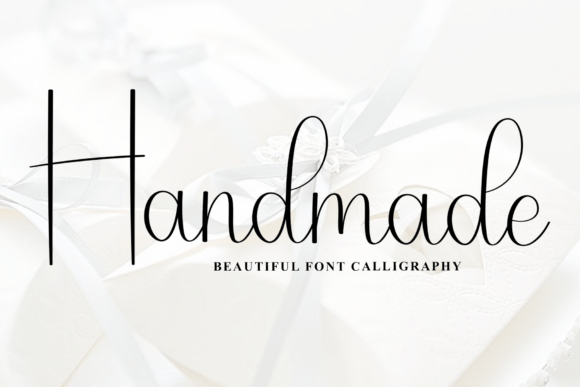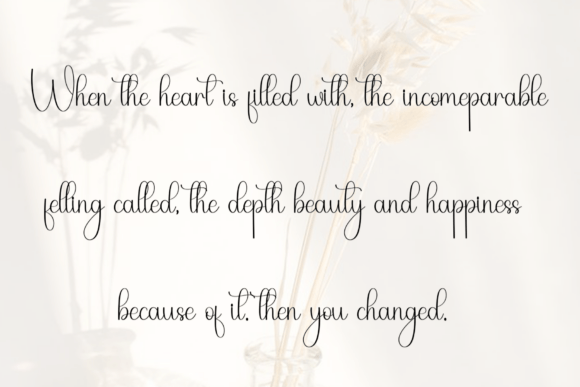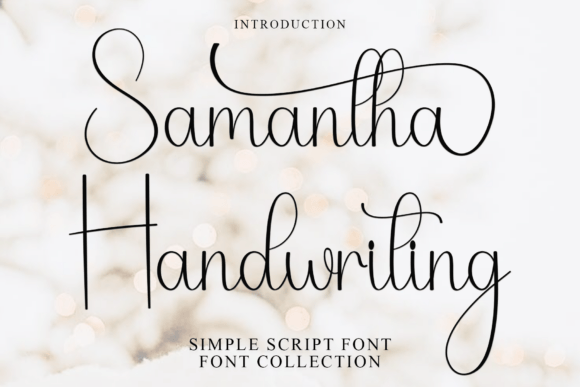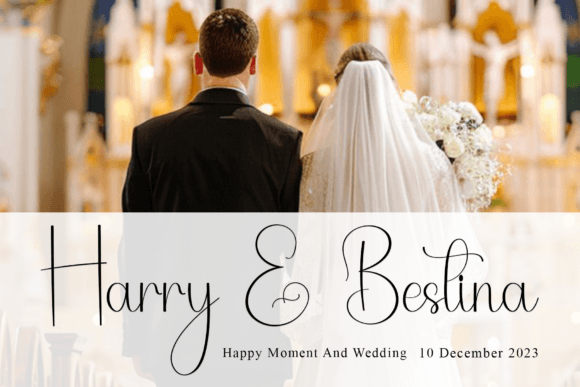
Samantha Handwriting Font
About the Samantha Handwriting Font
Elevate your designs with Samantha Handwriting Font, a font that combines sophistication with readability. Samantha Handwriting is a casual and creative font that exudes warmth and friendliness. Its round, playful strokes create a relaxed and approachable feel, perfect for personal projects, invitations, and social media graphics. The font’s charming, hand-drawn aesthetic adds a fun and unique touch to any design.